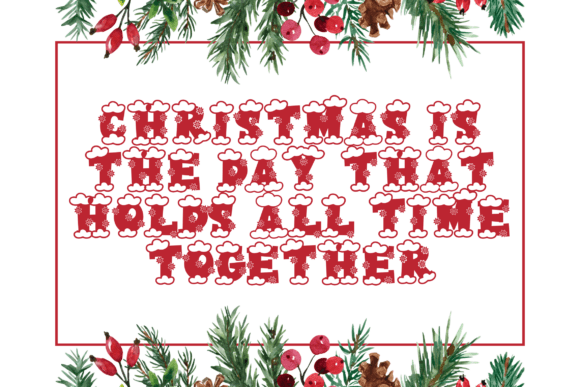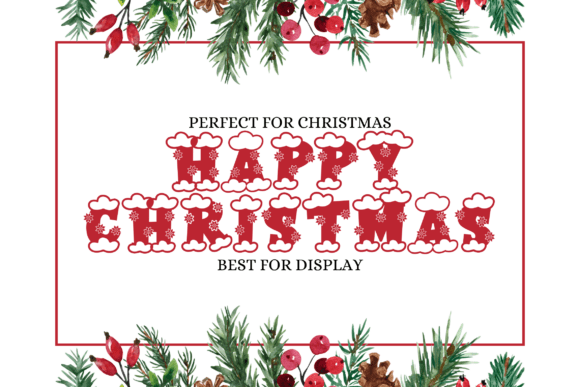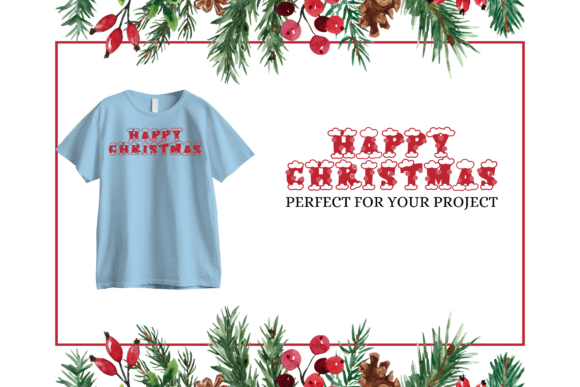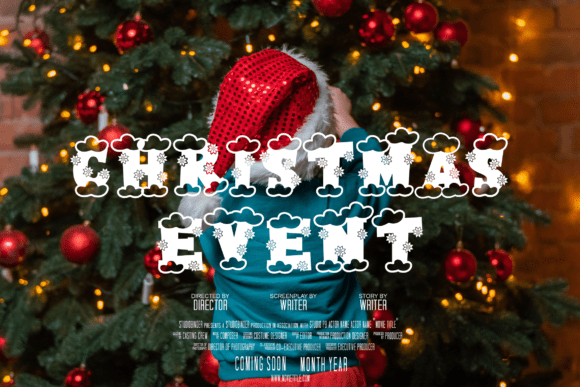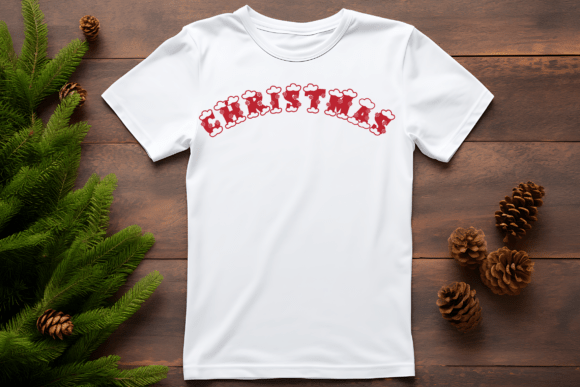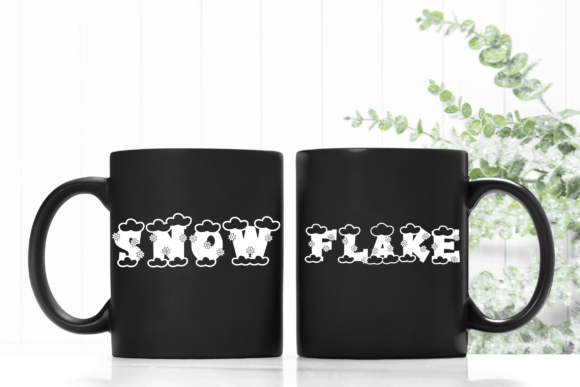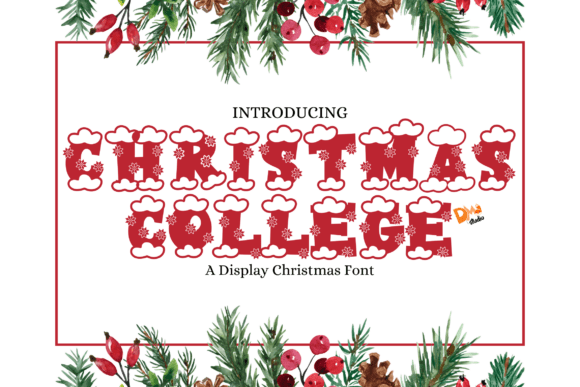
Christmas College Font: The Ultimate Holiday Typeface for Designers and Crafters
As the holiday season approaches, designers and crafters are on the lookout for the perfect font to capture the essence of Christmas. Look no further than the Christmas College Font, a unique and festive typeface that combines bold, varsity-style lettering with a delightful holiday twist. In this article, we’ll dive into the world of Christmas College Font, exploring its features, uses, and benefits for designers and crafters.
A Font that Embodies the Spirit of Christmas
Imbued with yuletide magic and classic collegiate charm, the Christmas College Font is the perfect addition to any holiday design project. Its bold, varsity-style lettering is reminiscent of classic sports jerseys and college campuses, while its holiday twist adds a touch of festive flair. Whether you’re designing Christmas-themed clothing, holiday cards, winter sports emblems, or festive event advertisements, this font is sure to shine.
The Christmas College Font is incredibly versatile, making it suitable for a wide range of design projects. Here are just a few ideas to get you started:
- Christmas-themed clothing: Add a touch of holiday cheer to your apparel designs with the Christmas College Font. Perfect for festive sweaters, holiday t-shirts, and Christmas socks.
- Holiday cards: Create heartwarming holiday cards that will make your loved ones feel special. The Christmas College Font is perfect for crafting personalized and festive greetings.
- Winter sports emblems: Add a touch of varsity-style flair to your winter sports emblems, such as hockey, skiing, or snowboarding logos.
- Festive event advertisements: Create eye-catching advertisements for your holiday events, such as Christmas markets, holiday festivals, or New Year’s Eve parties.
What Makes Christmas College Font So Special?
So, what sets the Christmas College Font apart from other holiday fonts? Here are just a few features that make it a standout:
- Unique blend of style and spirit: The Christmas College Font effortlessly blends bold, varsity-style lettering with a delightful holiday twist, making it the perfect combination of style and spirit.
- Profuse with cheer and nostalgia: This font is designed to evoke feelings of nostalgia and cheer, making it perfect for holiday designs that aim to capture the essence of the season.
- Easy to read and customize: The Christmas College Font is clear, legible, and easy to customize, making it perfect for designers and crafters of all skill levels.
Tips for Using Christmas College Font
Here are a few tips for getting the most out of the Christmas College Font:
- Pair with complementary fonts: Experiment with pairing the Christmas College Font with complementary fonts to create visually appealing and cohesive designs.
- Use in combination with festive graphics: Add an extra touch of festive flair to your designs by combining the Christmas College Font with festive graphics, such as holly, snowflakes, or reindeer.
- Experiment with colors: Don’t be afraid to experiment with different colors and textures to add depth and interest to your designs.
The Christmas College Font is a unique and festive typeface that’s perfect for designers and crafters looking to capture the essence of the holiday season. With its bold, varsity-style lettering and delightful holiday twist, this font is sure to add a touch of yuletide magic to any design project. Whether you’re creating Christmas-themed clothing, holiday cards, winter sports emblems, or festive event advertisements, the Christmas College Font is the perfect choice. So why wait? Download the Christmas College Font today and start infusing your design visions with the heartwarming essence of the season!